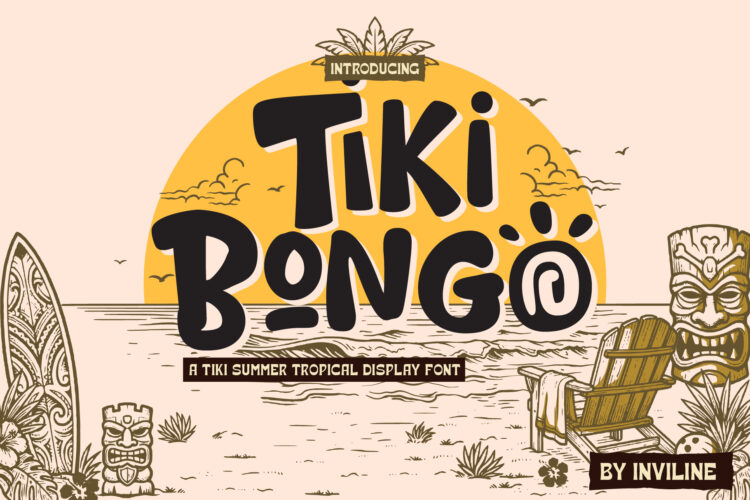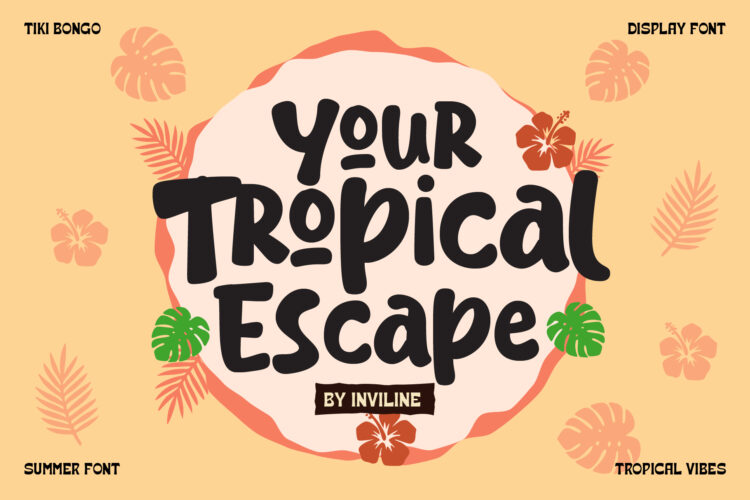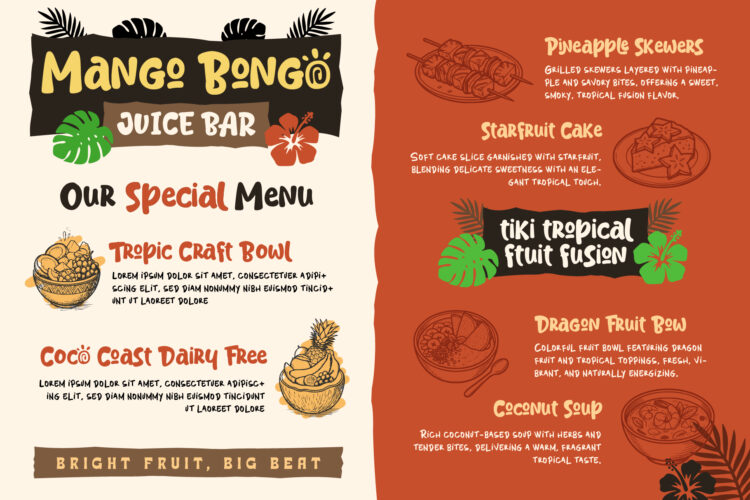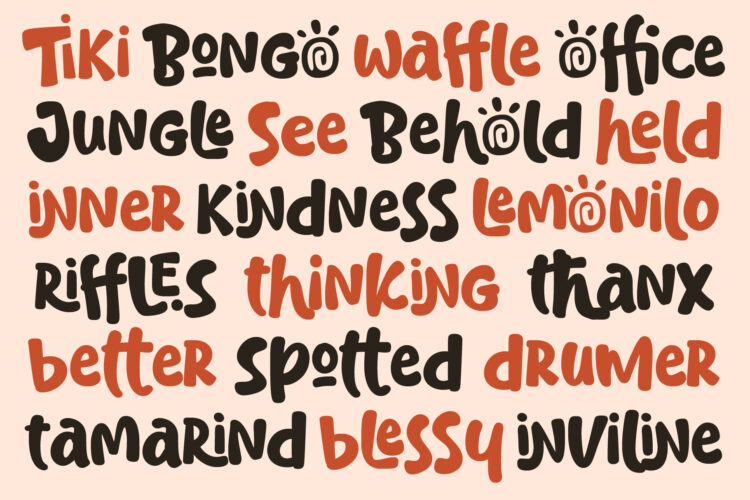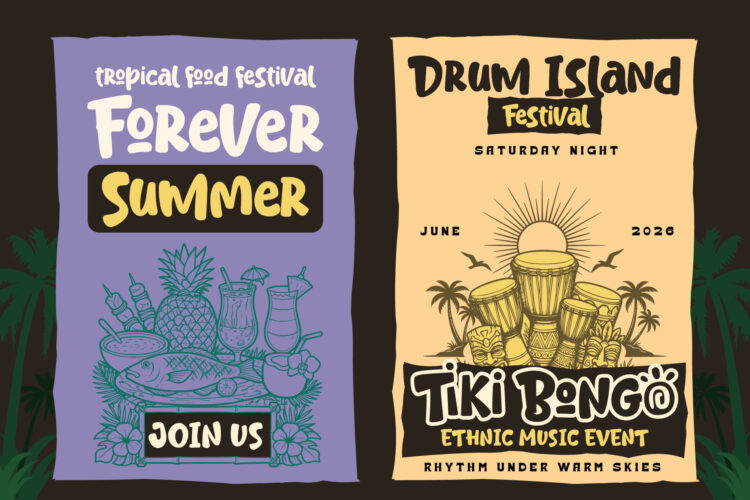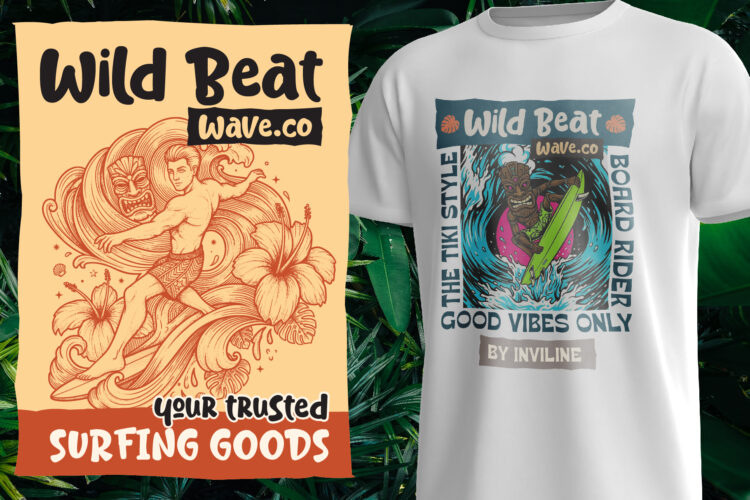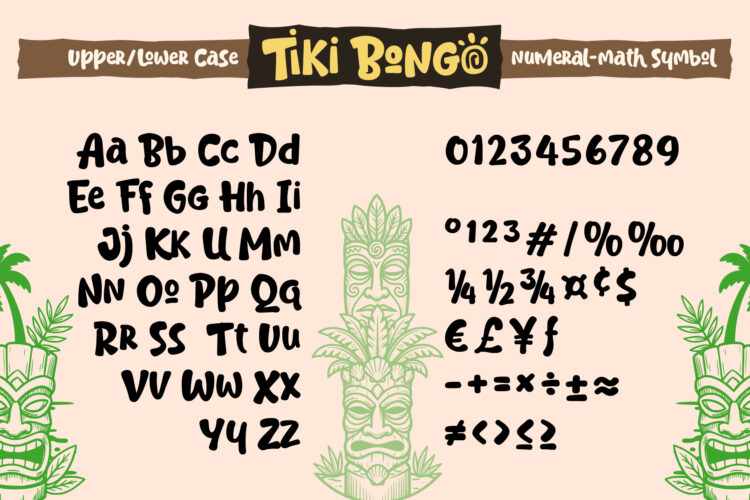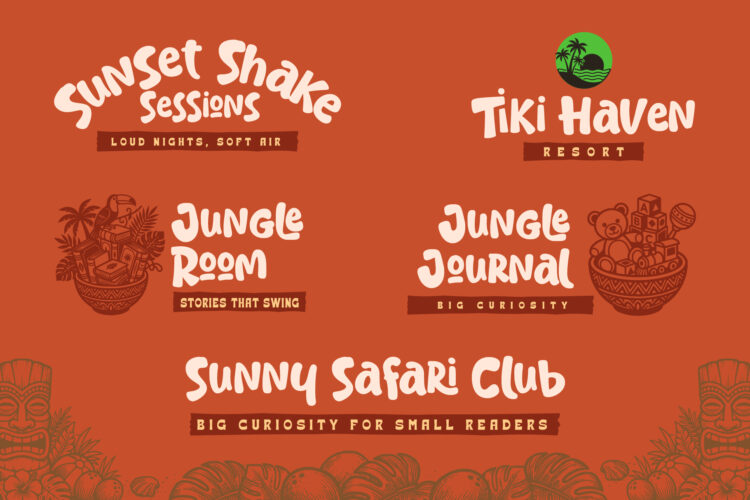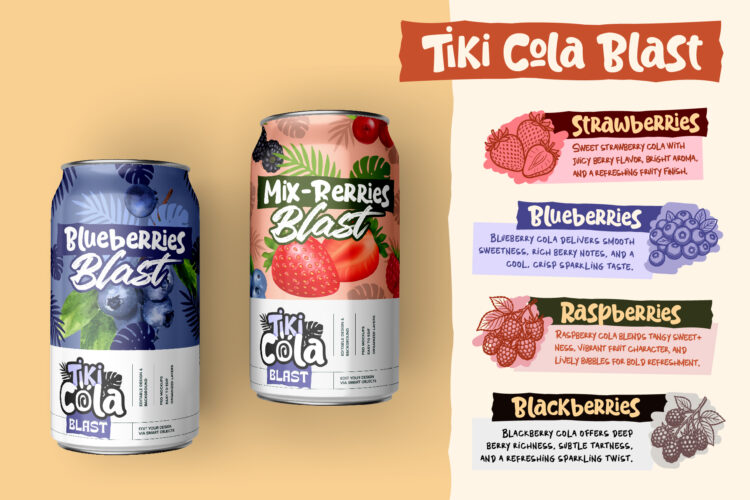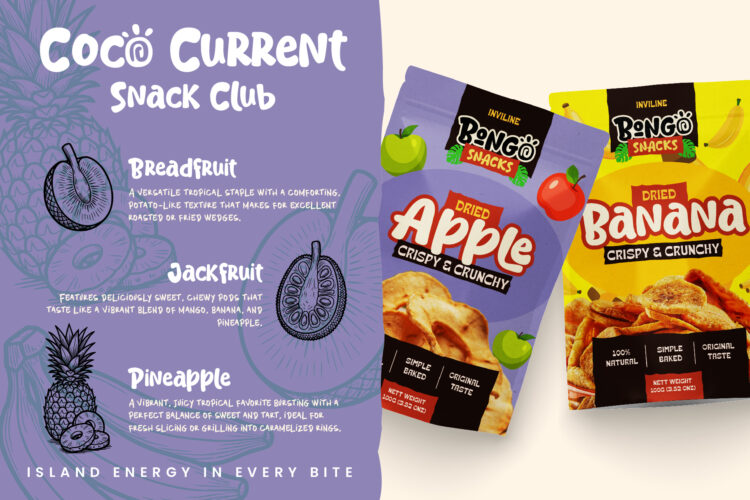
Tiki Bongo is a tropical display font designed to bring warmth, fun, and personality into your work. Inspired by island culture, beach festivals, and handcrafted aesthetics, this font features bold, organic shapes that instantly grab attention.
Each letter is crafted with a playful rhythm, making it perfect for projects that need a lively and expressive touch. Whether you’re creating branding for a tropical cafe, designing summer event posters, or building standout packaging, Tiki Bongo delivers a strong visual presence with a relaxed island vibe.